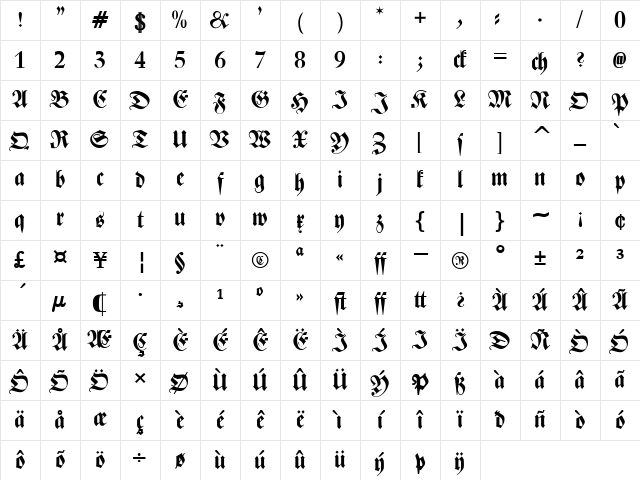
Zentenar Fraktur Bold Free Font
Zentenar Fraktur Bold
Foundry: Typographer Mediengestaltung
Designer: Friedrich Hermann Ernst Schneidler
Design Context for Zentenar Fraktur
Zentenar Fraktur draws on the rich tradition of blackletter calligraphy, with dense, angular strokes that evoke medieval manuscripts and old-world craftsmanship. Its bold stroke weight gives it real presence on the page.
Font Pairing: Pair with a clean neutral sans-serif for body copy to let Zentenar Fraktur's character lead without overwhelming the composition.
Pro Tip: Reserve Zentenar Fraktur for display and logo use - pair it with a clean sans-serif for body copy to prevent the composition from feeling oppressive.